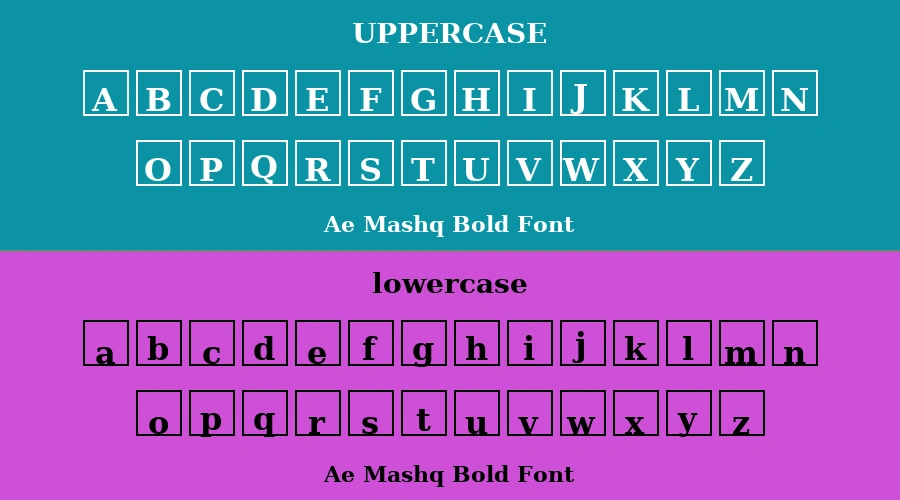
About Ae Mashq Bold Font
Ae Mashq Bold Font embodies typographic excellence through its masterful combination of graceful transitions and reliability. Created for presentation decks, this typeface delivers exceptional adaptability and creative potential across all applications. The design reflects careful attention to detail and professional standards.
Advanced capabilities include distinctive monoline strokes and versatile decorative sets, giving designers creative control. When used in logos, Ae Mashq Bold Font exhibits remarkable digital conversion. The harmonious balance between joint detail and cultural relevance sets this typeface apart.